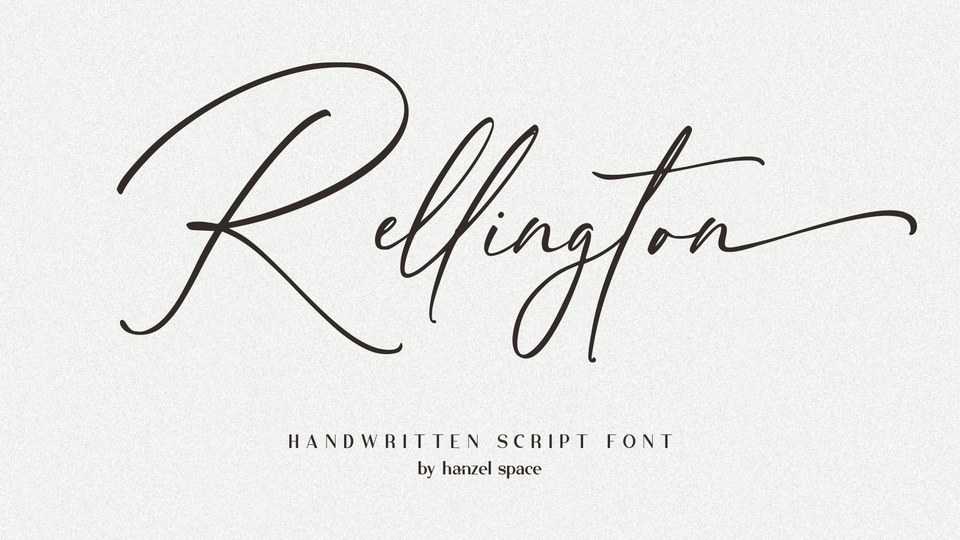
Download Rellington font, an elegant handwritten script typeface. Rellington is specially created for projects that need a touch of elegance and modernity for your designs.